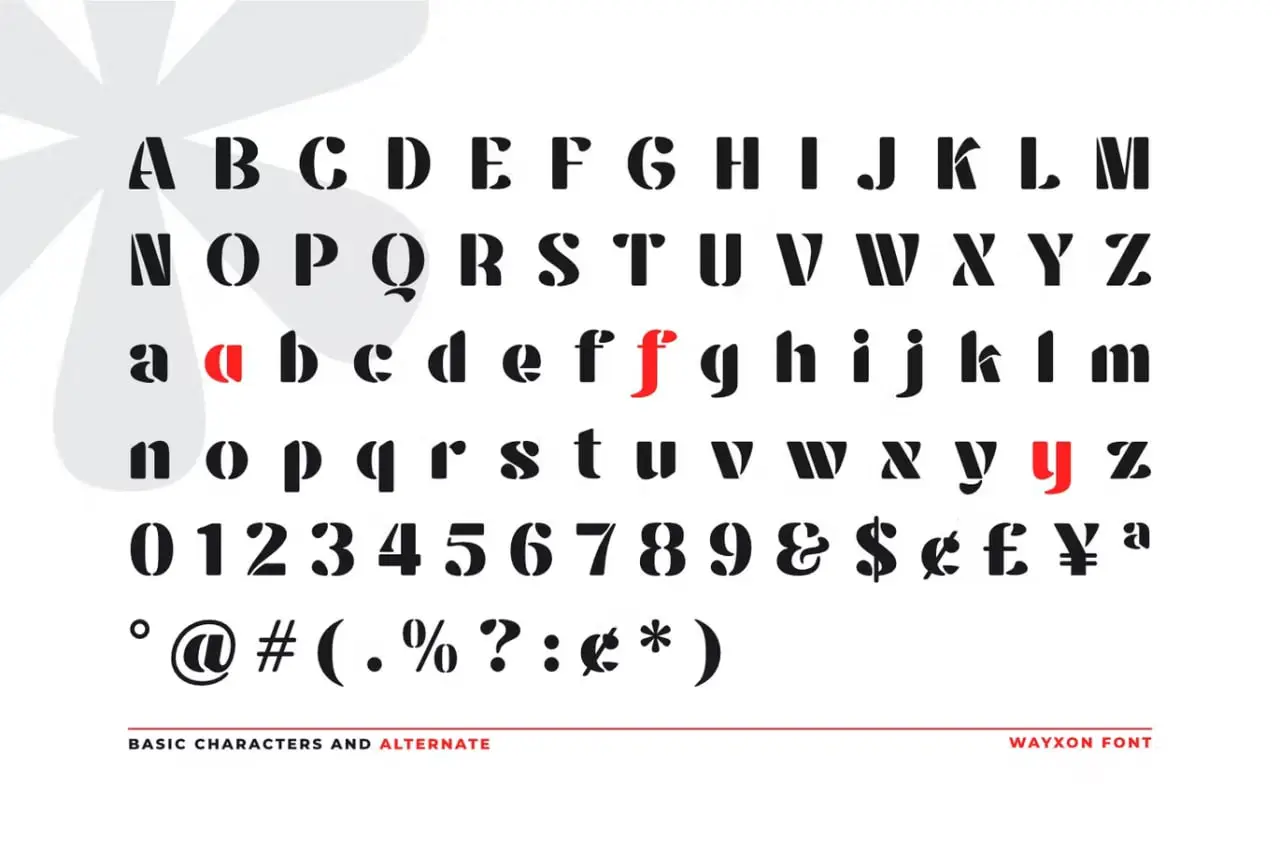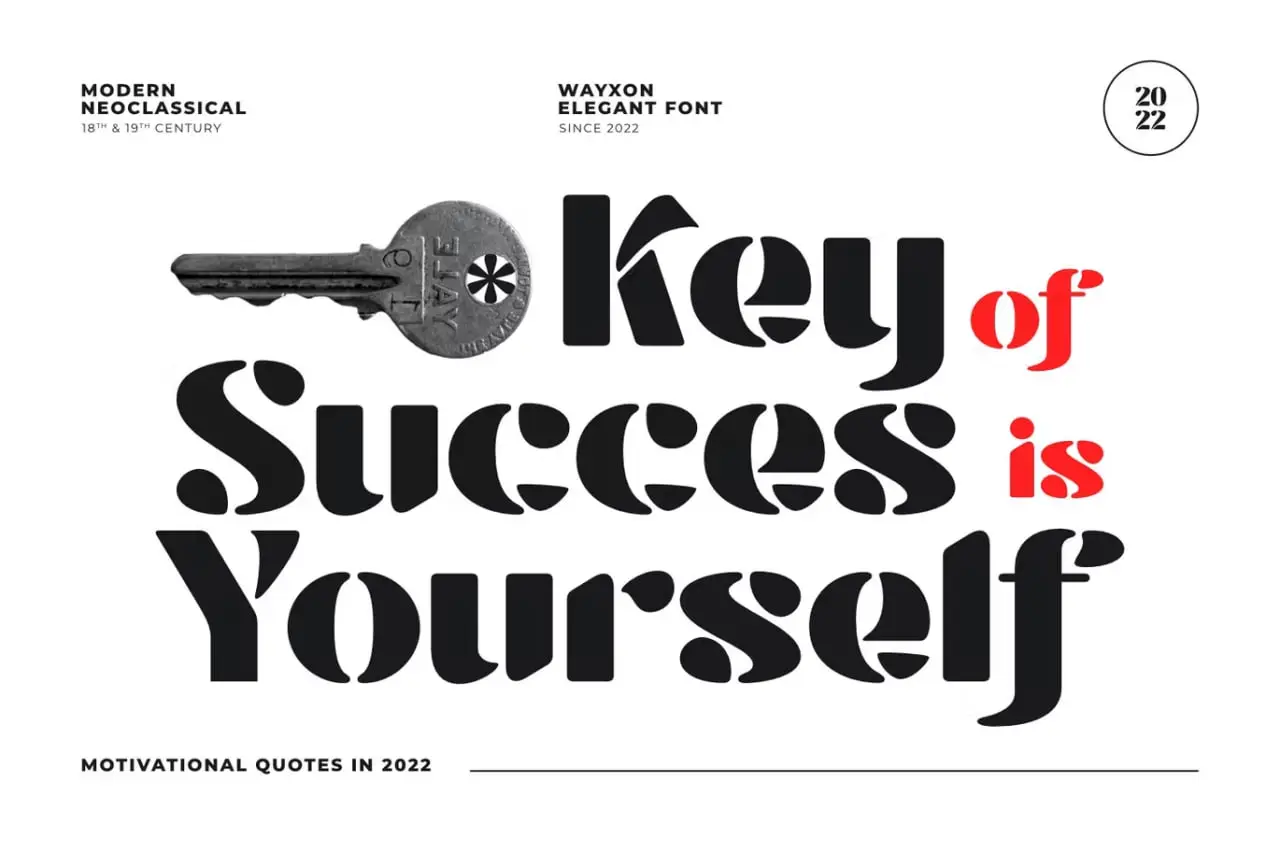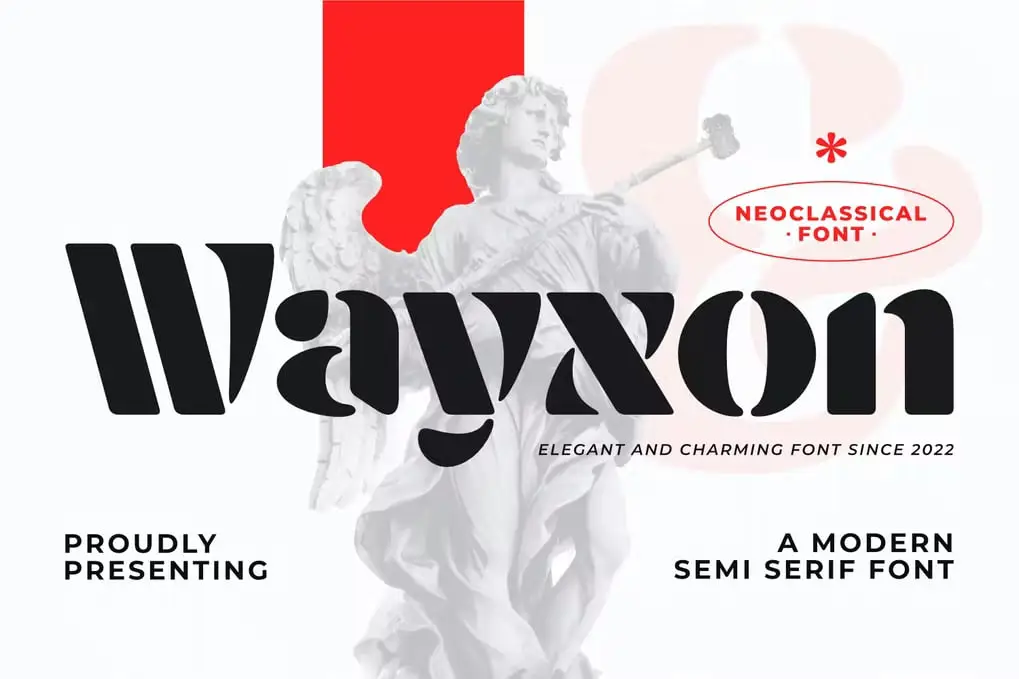
The Modern Font is a versatile typeface designed to elevate your creative projects. With its clean lines and contemporary aesthetic, this font is perfect for a variety of applications including branding, logos, web design, print materials, and user interfaces.
- Multiple weights for flexibility in design
- Stylish uppercase and lowercase letters
- Numerous special characters and glyphs
Utilize the Modern Font for eye-catching headlines, elegant logos, and stylish web content to create a lasting impression.